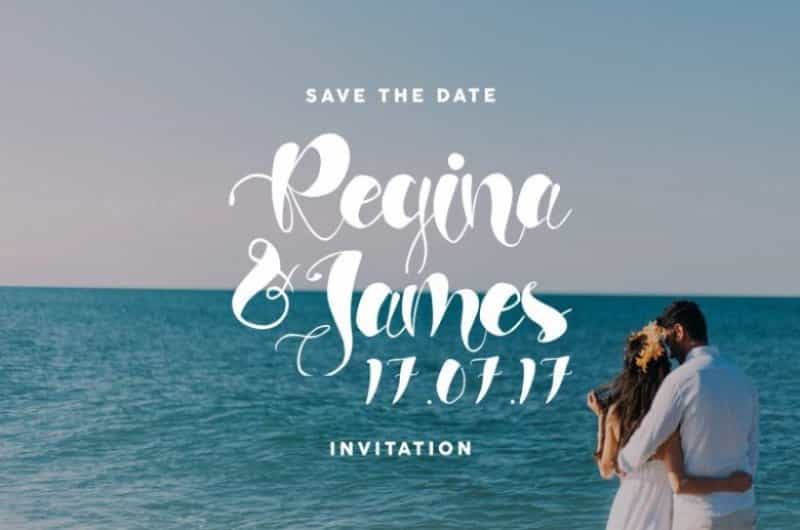
Meet our new family: GHOST! Do not be afraid, it is a Script Calligraphy Duo. Got 2 styles: inline and regular. It is a bold, beauty yet it is clearly unique. Produced BY HAND from sketch. This sophisticated handwritten calligraphy font will be wonderful for any projects that need handwriting which is elegant, natural, stylish, classy, strong and beautiful.